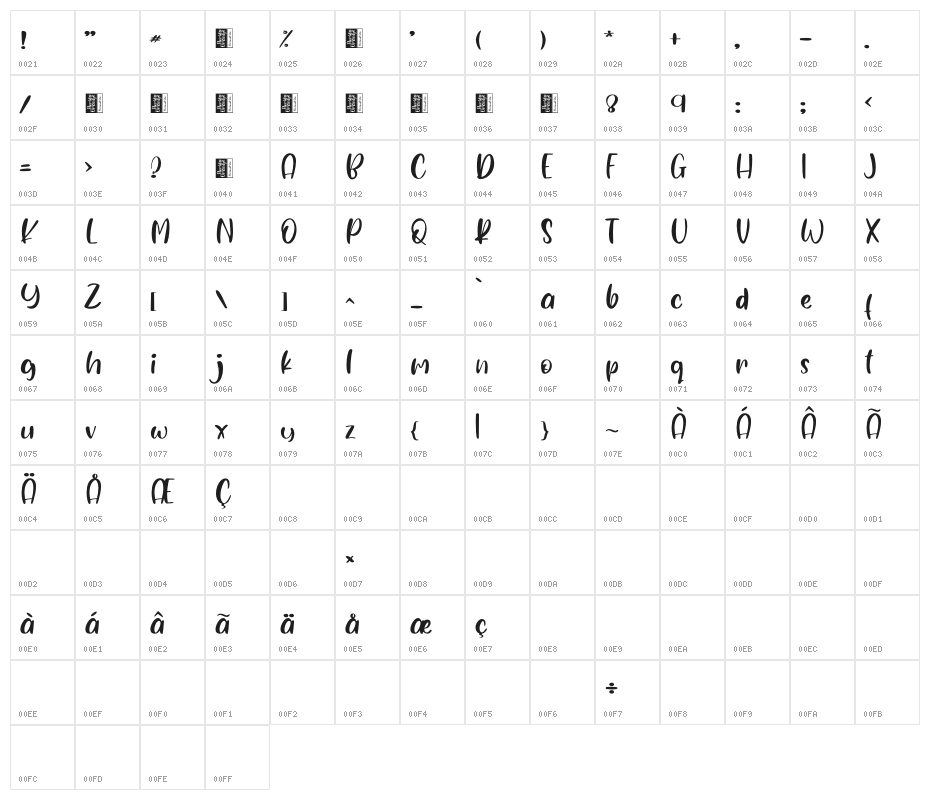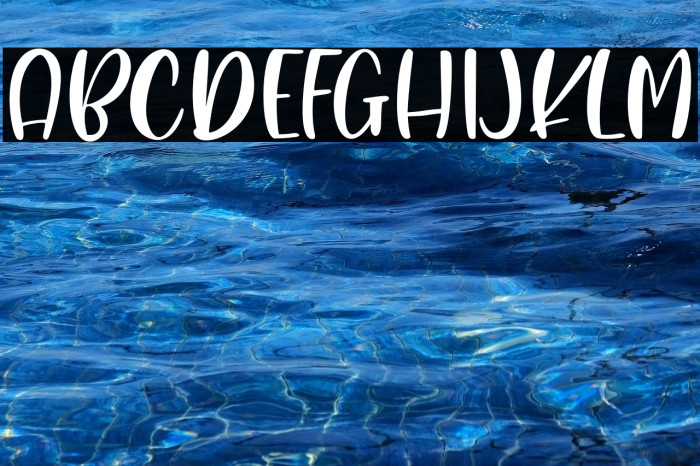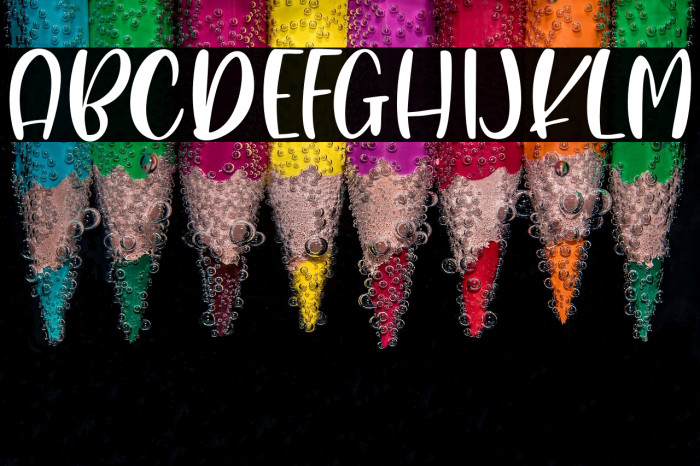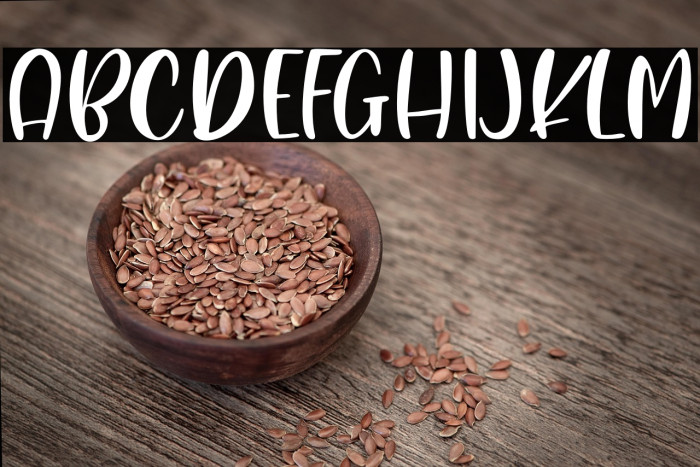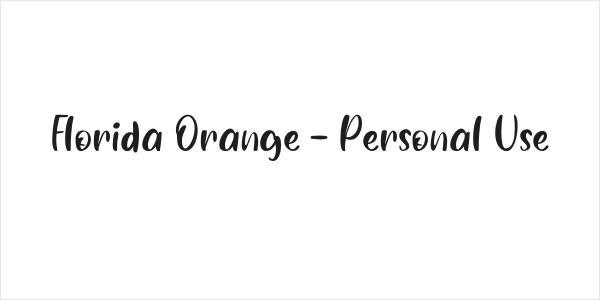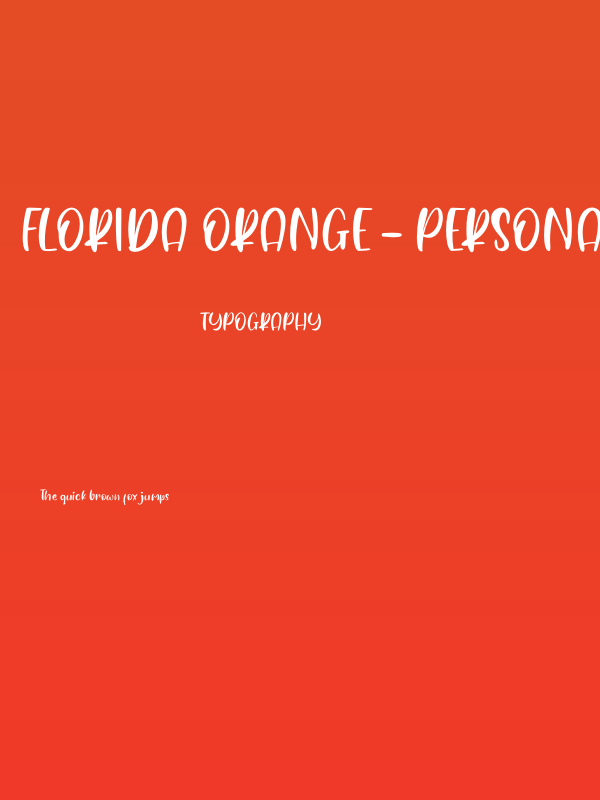
Florida Orange - Personal Use Font
Florida Orange - Personal Use Description
This font features a playful and energetic script style, characterized by its smooth, flowing curves and slightly irregular strokes. The uppercase letters are bold and dynamic, with a distinctive flair that adds a sense of movement. The lowercase letters maintain a cohesive look, with rounded edges and a consistent baseline that enhances readability. The numbers and special characters complement the overall design, offering a harmonious blend of style and functionality. This font's lively appearance makes it ideal for projects that require a touch of personality and creativity.